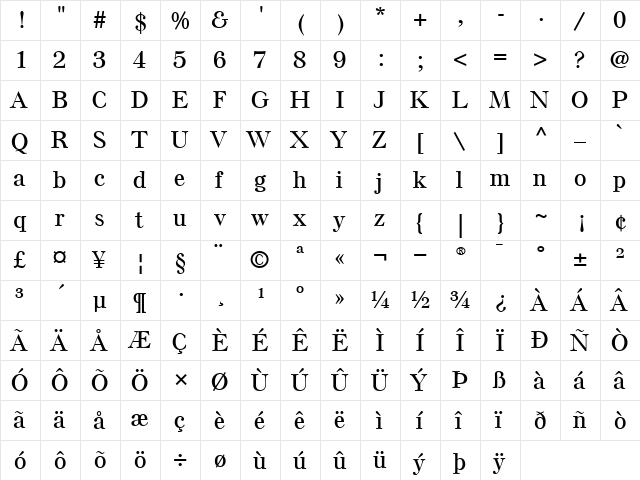
ElseNPLSemi Bold
Design Context for ElseNPLSemi Typeface
ElseNPLSemi offers clean, dependable letterforms without strong stylistic allegiance, making it a practical choice for designers who need flexibility. Its bold stroke weight gives it real presence on the page.